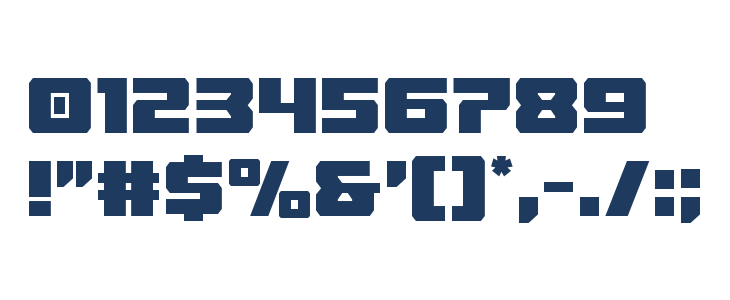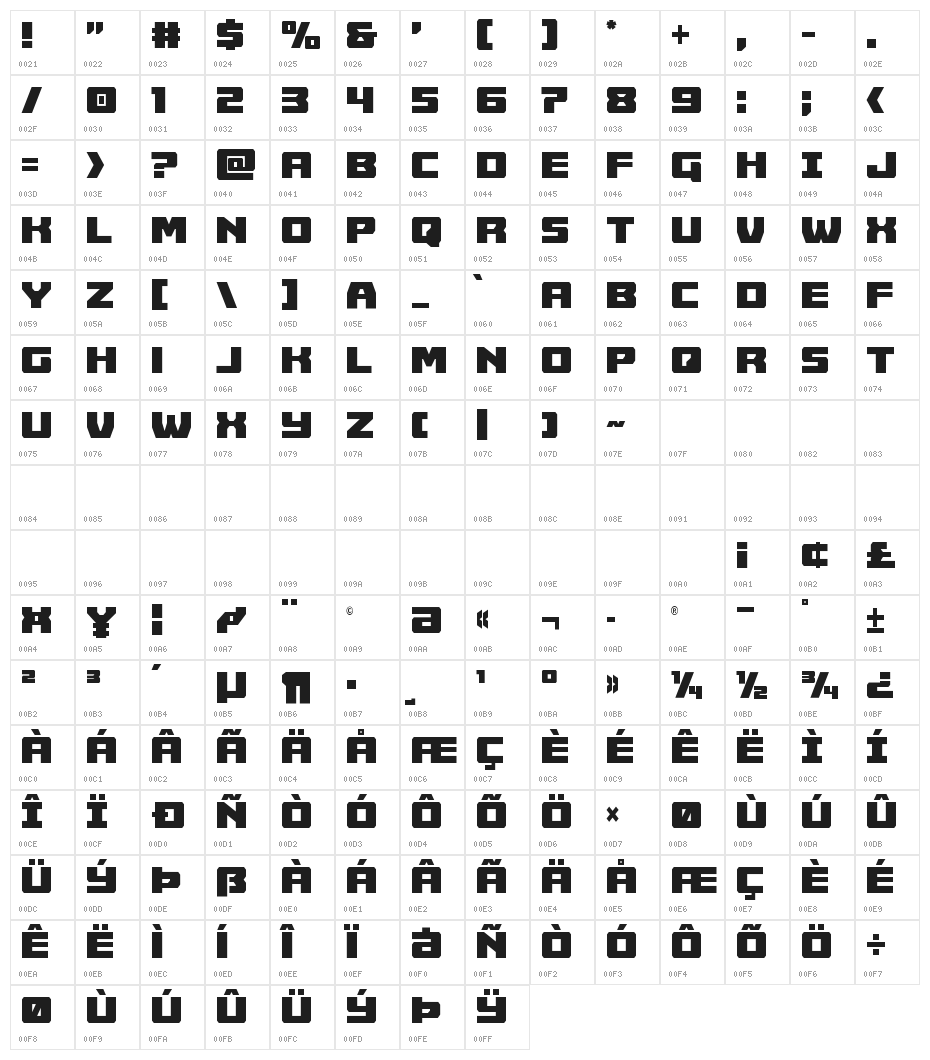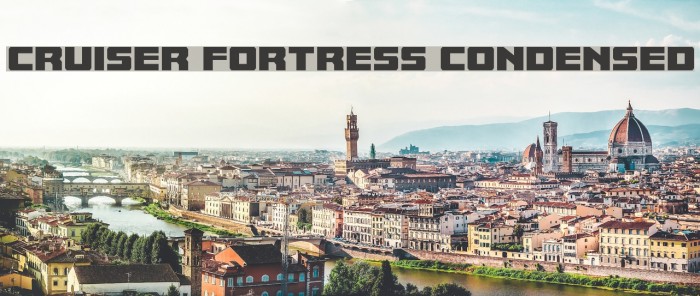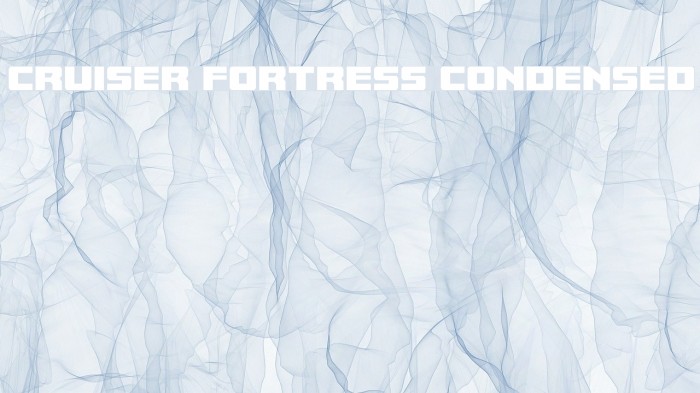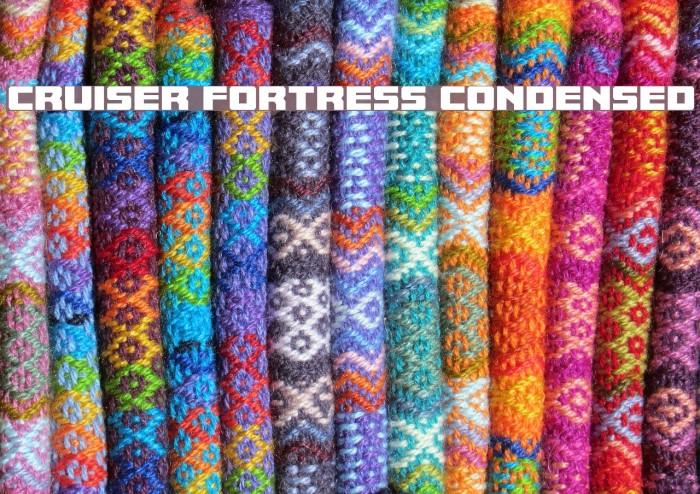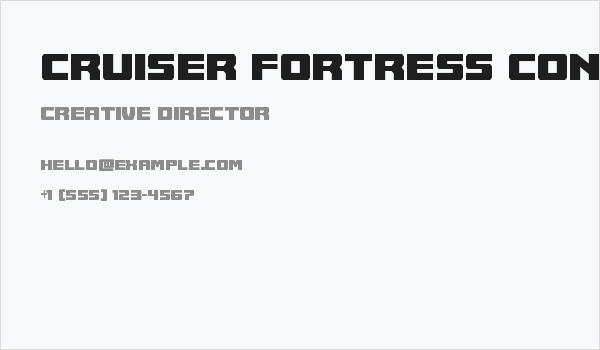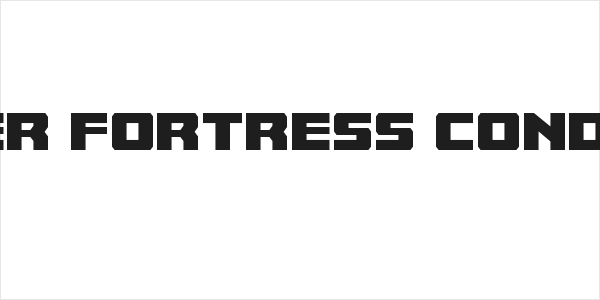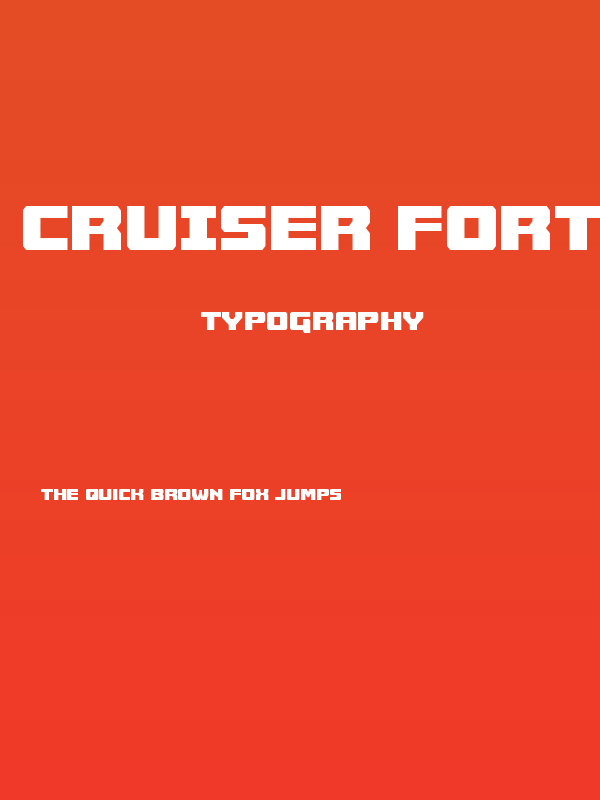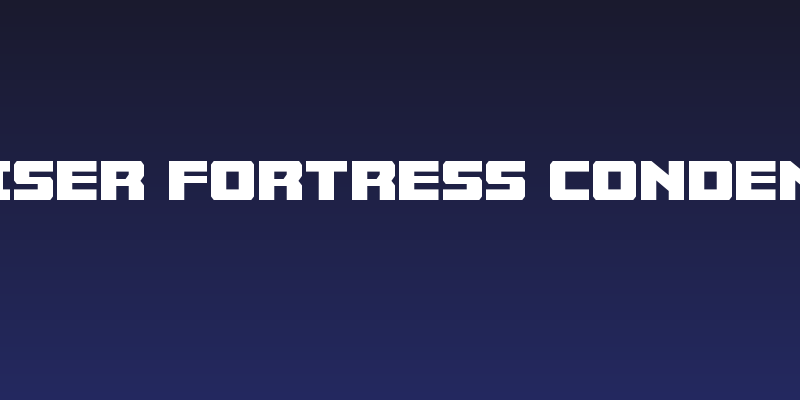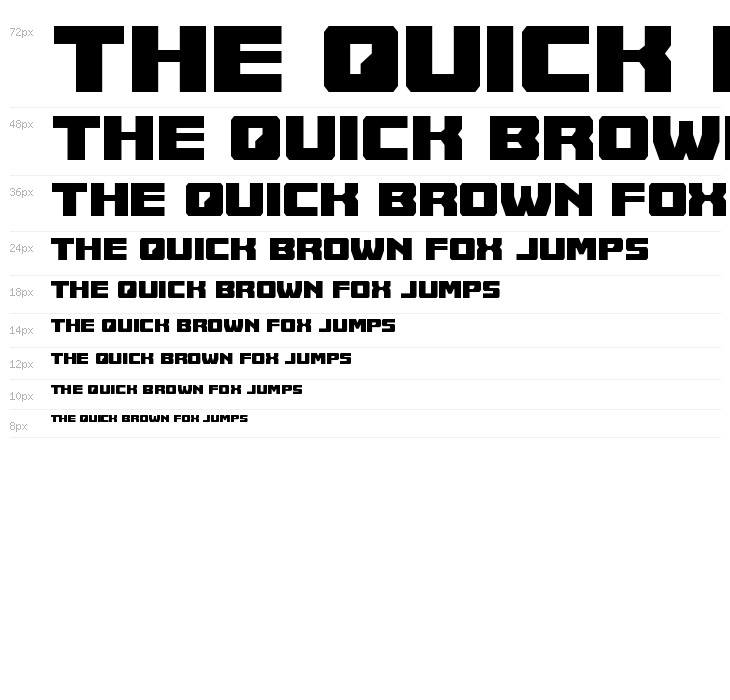
Cruiser Fortress Condensed Font
Cruiser Fortress Condensed Description
This font features a bold and robust design with a distinctly geometric and blocky appearance. The characters are uniformly wide, creating a strong and impactful visual presence. The angular edges and straight lines give it a modern and industrial feel, suitable for conveying strength and stability. The uppercase and lowercase letters maintain consistent proportions, enhancing readability while retaining a unique style. The numerals and special characters are designed to match the overall aesthetic, ensuring a cohesive look across all text elements.